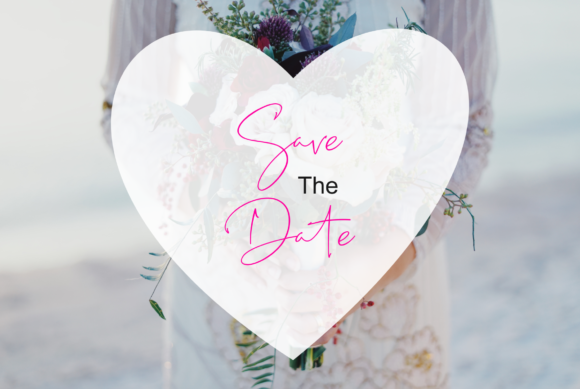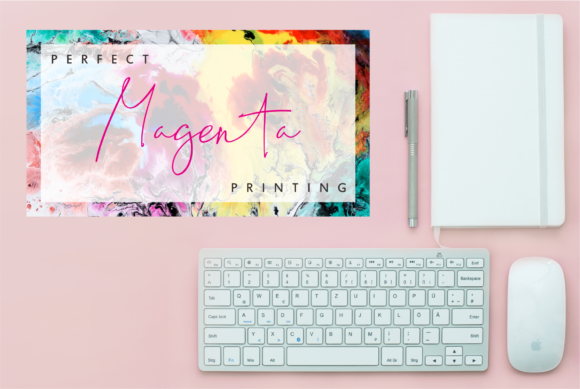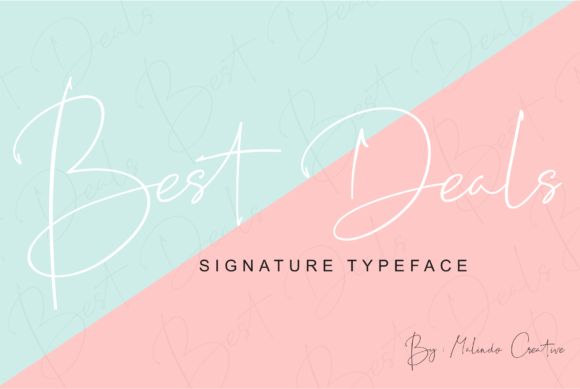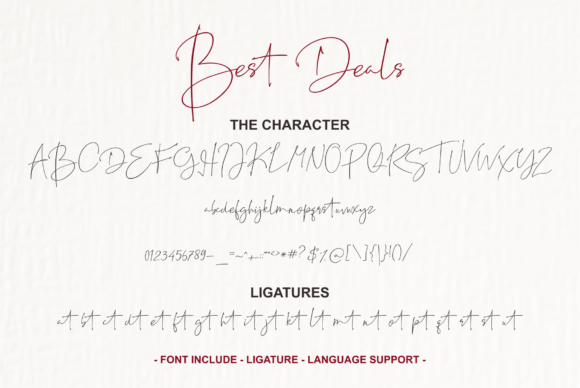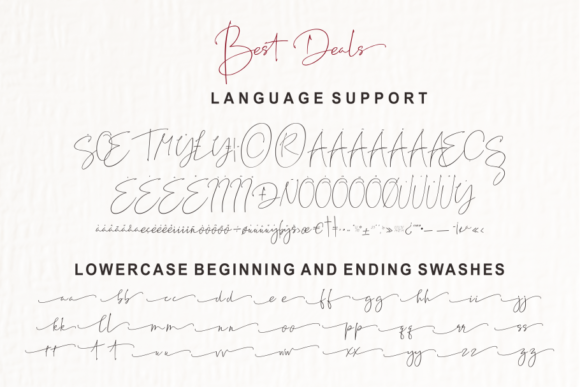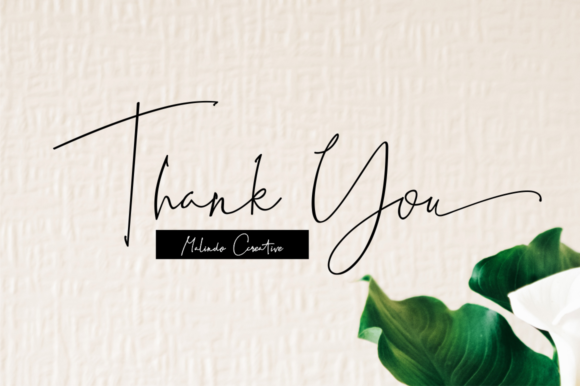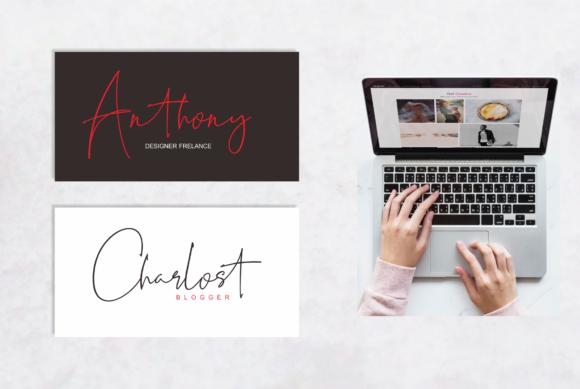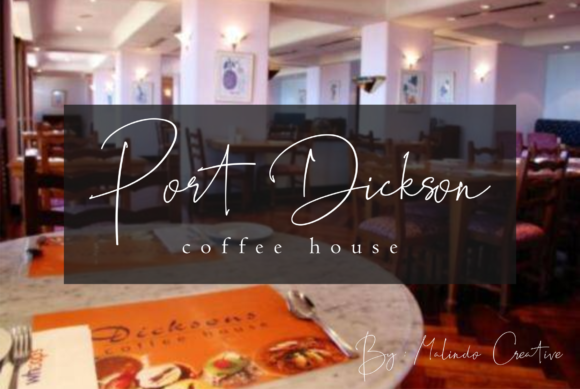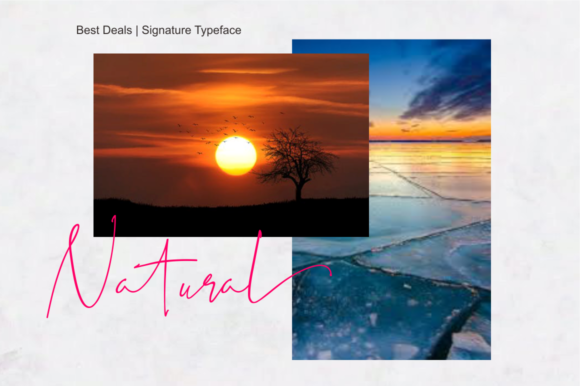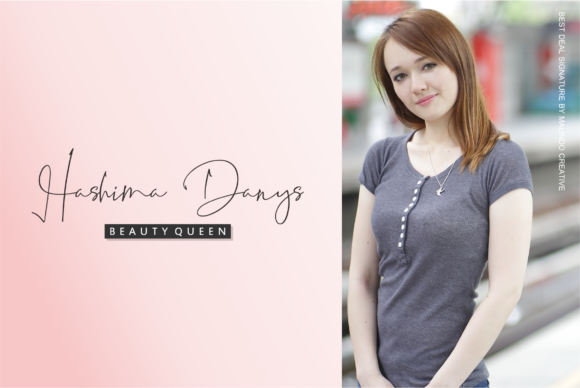
HomeScript FontsBest Deals Font Script Fonts Best Deals Font FacebookXPinterestWhatsApp Best Deals Font Poster 2 Best Deals Font Poster 3 Best Deals Font Poster 4 Best Deals Font Poster 5 Best Deals Font Poster 6 Best Deals Font Poster 7 Best Deals Font Poster 8 Best Deals Font Poster 9 Best Deals Font Poster 10 Best Deals Font Poster 11 Best Deals Font Poster 12 Best Deals Font Poster 13 Best Deals Font Poster 14 Best Deals Font Poster 15 About Best Deals Font Best Deals is a elegant signature font that has the authentic style of a real ink pen. DOWNLOAD NOW People also explored Wedding Flower Monogram Font Lovey Dovey Font Beautiful Valentine Font Los Angeles Font Kinsans Font Genres Giantoli Duo Font Mighty Font Mango Fruits Font 311 0 TagsBest Deals Font Previous articleThamvan FontNext articleDuttane Script Font LEAVE A REPLY Cancel reply Comment: Please enter your comment! Name:* Please enter your name here Email:* You have entered an incorrect email address! Please enter your email address here Website: Save my name, email, and website in this browser for the next time I comment. Personal Use Free Hello, How Are You? Personal Use Free Read more about this font Hello December Personal Use Free Read more about this font Anders Personal Use Free Read more about this font Green Fuz Personal Use Free Read more about this font BLOG The 10 Best Handwriting Fonts to Add Personality to Your Designs 10 of the Best Handwriting Fonts for Adding Personality to Your Designs There will undoubtedly be no other better choice than handwriting fonts to give... Transform Your Website: Elevate Your Typography with 7 Best Web Font Generators How to Install and Use Fonts on Windows, macOS, and Web Projects Free vs Paid Fonts: Why Investing in Premium Fonts Is Worth It